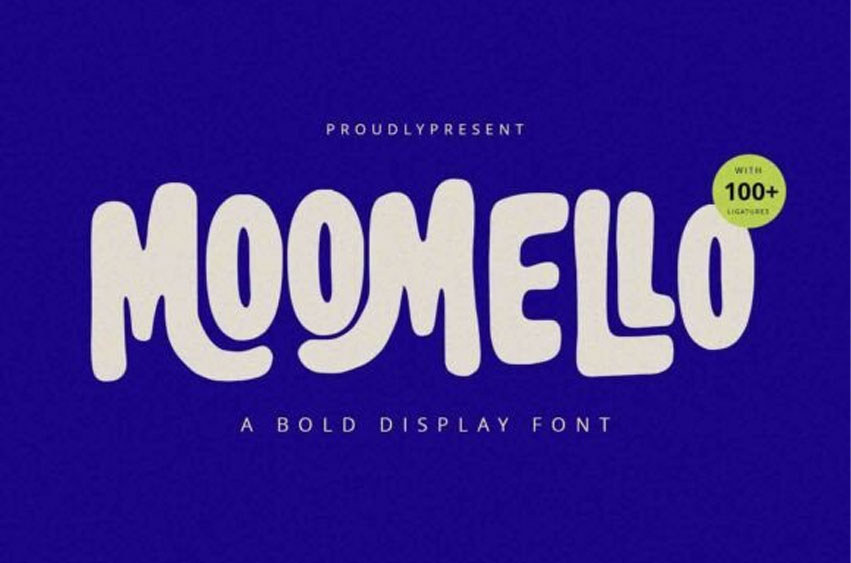
Moomello Font
Moomello Font is a sweet and friendly handwritten font. Its natural and unique style makes it incredibly fitting for a large pool of designs.